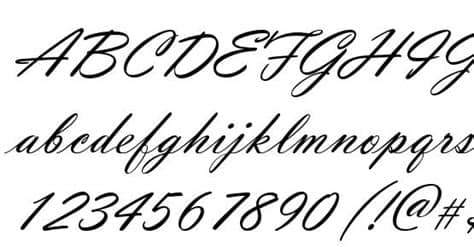
Vladimir script is free for personal use only. Vladimir script font was designed by andrich vladimir. Script is a product of micrologic software, inc. Download vladimir script font free! Vladimir script bold italic free download. Share vladimir script free font. Please enable it to use the advanced features of this website. Round style deco book download font. You can use the vladimir script to create interesting designs, covers, shop and store name and logos. Vladimir script font by urw type foundry. Vladimir script regular vladimir script version 1. Designed by andrich vladimir, vladimir script is a script font release by urw. (cookies must be enabled in your browser.) black yellow purple orange red blue.
1970s , connected , modern style. Vladimir script font was designed by andrich vladimir. Vladimir script full font name: Enter some text in the box below, then click the preview button. Of fonts downloaded yesterday : Vision light italic download font. Vladimir script font by urw type foundry. Buy vladimir script font from itc on fonts.com.
Download vladimir script font at fontsmarket.com, the largest collection of amazing freely available fonts for windows and mac.
Vladimir script font subfamily identification: Download vladimir script font at fontsmarket.com, the largest collection of amazing freely available fonts for windows and mac. Urw software, copyright (c) 1995 by urw. Copyright (c) 1995 microsoft corporation. Urw software, copyright (c) 1995 by urw. Round style deco book download font. Please, talk with the author for commercial use or for any support. Copyright (c) 1995 microsoft corporation. Download free for commercial useadd to favoritesshare. Contains language support for west, east, turkish, baltic, and romanian. This font software may not be reproduced, modified, disclosed or transferred without the express written approval of linotype gmbh. Version 1.05 postscript font name: You can use the vladimir script to create interesting designs, covers, shop and store name and logos.